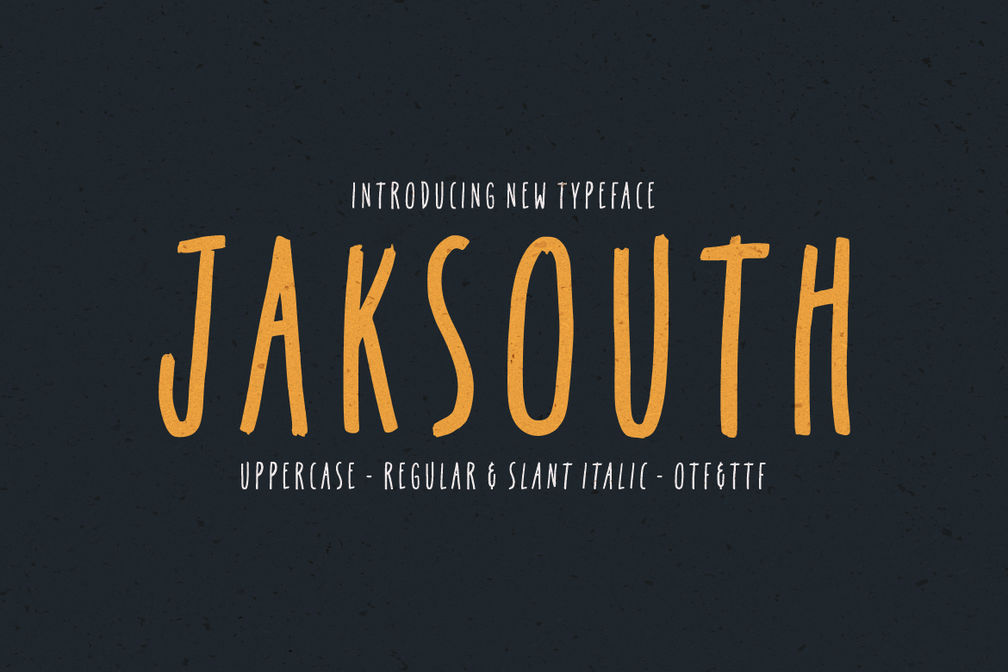
Jaksouth Handwriting
Jaksouth is handwriting uppercase sans-serif font style, perfect for social media posts, posters, quotes, and other designs. Include two style Regular and Slant (Italic).